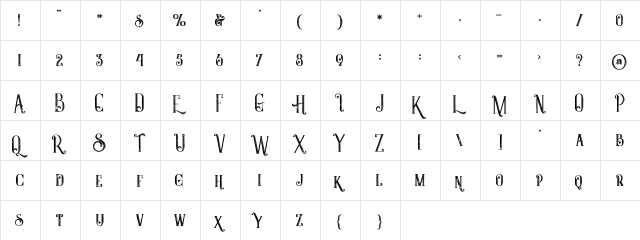
Castile Inline Grunge
Design Context for Castile Inline Grunge Typeface
Castile Inline Grunge trades polish for personality, using distressed and eroded forms to bring grit and attitude to creative work.
Suited to punk-influenced zines, underground music branding, streetwear, and raw, anti-corporate design.
Pro Tip: Pair Castile Inline Grunge with intentionally raw or lo-fi design elements. Fighting against it with overly polished surroundings will undermine its personality.